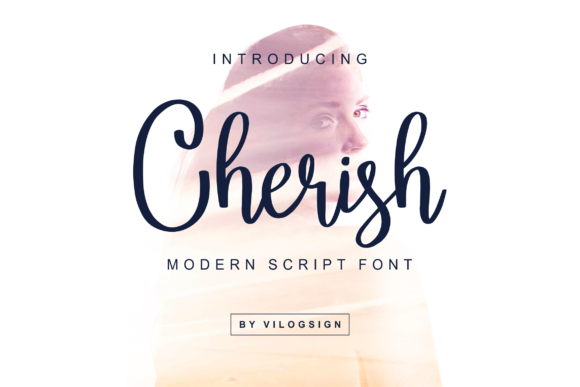
The Perfect Blend of Elegance and Whimsy: Introducing Cherish Script Font
As designers, we’ve all been there – staring at a blank canvas, trying to capture the essence of our brand or message in a single, beautiful font. The search for the perfect script font can be overwhelming, but today, I’m thrilled to share with you a game-changer: the Cherish Script Font.
This stunning modern script font boasts round shapes that exude elegance, modernity, and a touch of natural charm. Whether you’re creating a logo, branding materials, or magazine layouts, the Cherish Script Font is sure to elevate your designs to the next level. As a designer, you’ll appreciate its versatility and the freedom to experiment with different styles and combinations. And the best part? It’s included as a bonus with an amazing rose flower vector, waiting to be used in your next creative project.
Cherish Script Font Key Features
- Font Family: Cherish Script Font, a beautiful and elegant script font.
- Unique Characteristics: Handwritten feel, elegant and flowing lines, perfect for creating a romantic and sophisticated look.
- Font Style: Script, Casual, and Handwritten styles are available, offering flexibility and versatility in design applications.
Designer Review: Cherish Script Font
Overall, I have mixed feelings about the Cherish Script Font. Here’s a breakdown of what I like and dislike:
- Beautifully crafted letterforms that evoke a sense of elegance and sophistication.
- Well-suited for various design applications, including wedding invitations, quotes, and product packaging.
- Supports both Latin and Cyrillic alphabets, making it a great choice for international design projects.
- Font weights and styles are somewhat limited, which may not provide enough versatility for complex designs.
- The font may not be ideal for body text due to its decorative nature and potential readability issues.
- The font’s script-like characteristics may make it difficult to achieve precise control over text layout and alignment.
In conclusion, Cherish Script Font is a lovely addition to any designer’s toolkit, but it’s essential to use it judiciously. While it excels at adding a touch of elegance to specific design elements, its limitations should be carefully considered before relying on it for extensive text-based projects.
The Cherish Script Font is ideal for creating elegant and sophisticated designs, making it perfect for:
- Editorial and publishing projects
To get the most out of the Cherish Script Font, experiment with different font sizes, colors, and styles to achieve the desired look and feel.
Alternatives to Cherish Script Font
Great Vibes is a beautiful, handwritten script font that exudes a sense of elegance and sophistication. It’s perfect for use in wedding invitations, baby shower invitations, and other special occasions. Great Vibes is a bit more refined than Cherish Script Font, with a more fluid and organic feel.
Alex Brush is a classic, elegant script font that’s perfect for use in formal invitations, certificates, and other formal documents. It’s a bit more formal than Cherish Script Font, with a more traditional and timeless feel. Alex Brush is also a bit more versatile, working well in a variety of font sizes and styles.
Carolyna Pro is a modern, elegant script font that’s perfect for use in branding, advertising, and other marketing materials. It’s a bit more modern and edgy than Cherish Script Font, with a more dynamic and expressive feel. Carolyna Pro is also highly customizable, making it a great choice for designers who want to add a personal touch to their work.
Playfair Display is a luxurious, elegant script font that’s perfect for use in high-end branding, advertising, and other marketing materials. It’s a bit more ornate and decorative than Cherish Script Font, with a more opulent and sophisticated feel. Playfair Display is also highly versatile, working well in a variety of font sizes and styles.